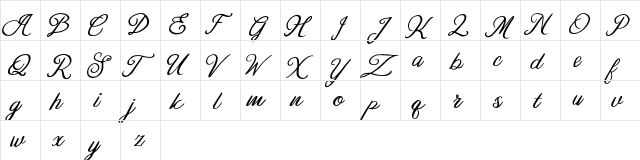
Emerland FREE Regular
Design Context for Emerland FREE Typeface
Emerland FREE is a composed and adaptable typeface that performs quietly and consistently across a wide range of design contexts.